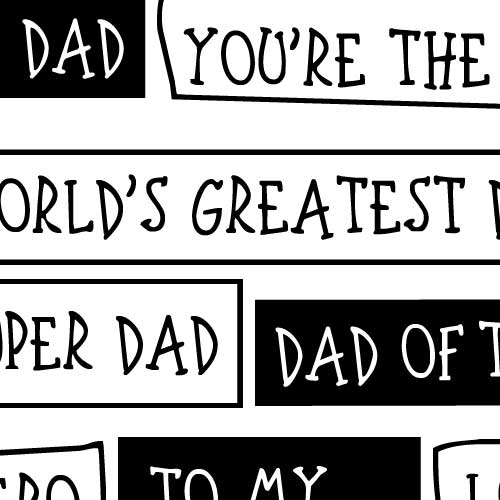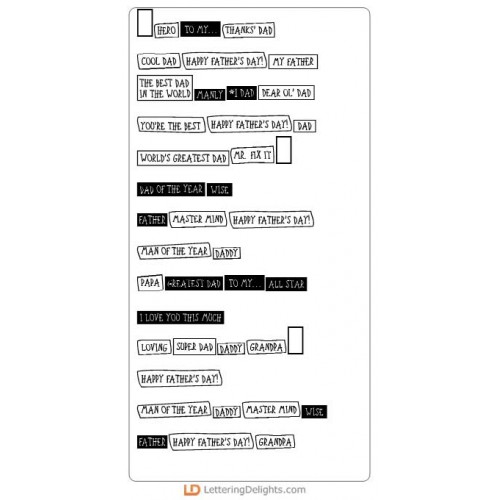
DB Boxy Dad - DB
These doodlebats are dedicated to dear 'ol dad. Each doodle corresponds to a keyboard letter or number. In this case, the doodles are heart-felt sentiments perfect for Father's Day.